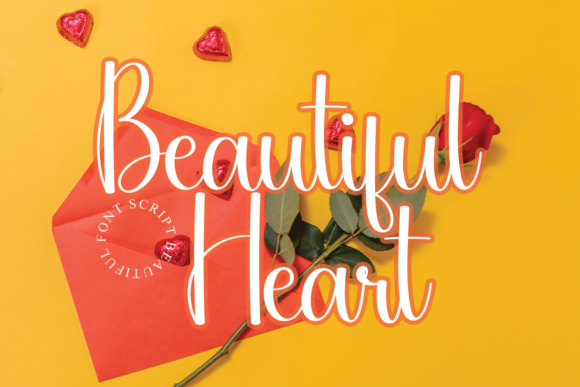
Journey into the realm of artistic expression with Beautiful Heart Font, a script font that dances across the digital canvas, captivating the hearts of designers and creatives alike. This font is a masterpiece of elegance and grace, perfectly suited for crafting logos, branding, and quotes that leave a lasting impression.
Unleash your creativity and let the flowing curves of each letter add a touch of enchantment to your designs. Beautiful Heart Font possesses an innate ability to transform ordinary words into breathtaking works of art. Its delicate strokes evoke a sense of nostalgia and romance, transporting you to a world where imagination knows no bounds.
With Beautiful Heart Font, the possibilities are endless. Elevate your branding with a logo that exudes sophistication and charm. Let your quotes and messages shine with a touch of artistic flair. Create invitations and greeting cards that evoke heartfelt emotions. The versatility of this font knows no limits, making it the perfect choice for a wide range of projects.
The Beautiful Heart Font is a symphony of beauty, a feast for the eyes that will add a touch of magic to any design. Download it today and embark on a creative journey where your ideas take flight and your designs come alive. Let the world witness the beauty that can be created with the stroke of a pen, the dance of letters, and the boundless imagination of an artist.